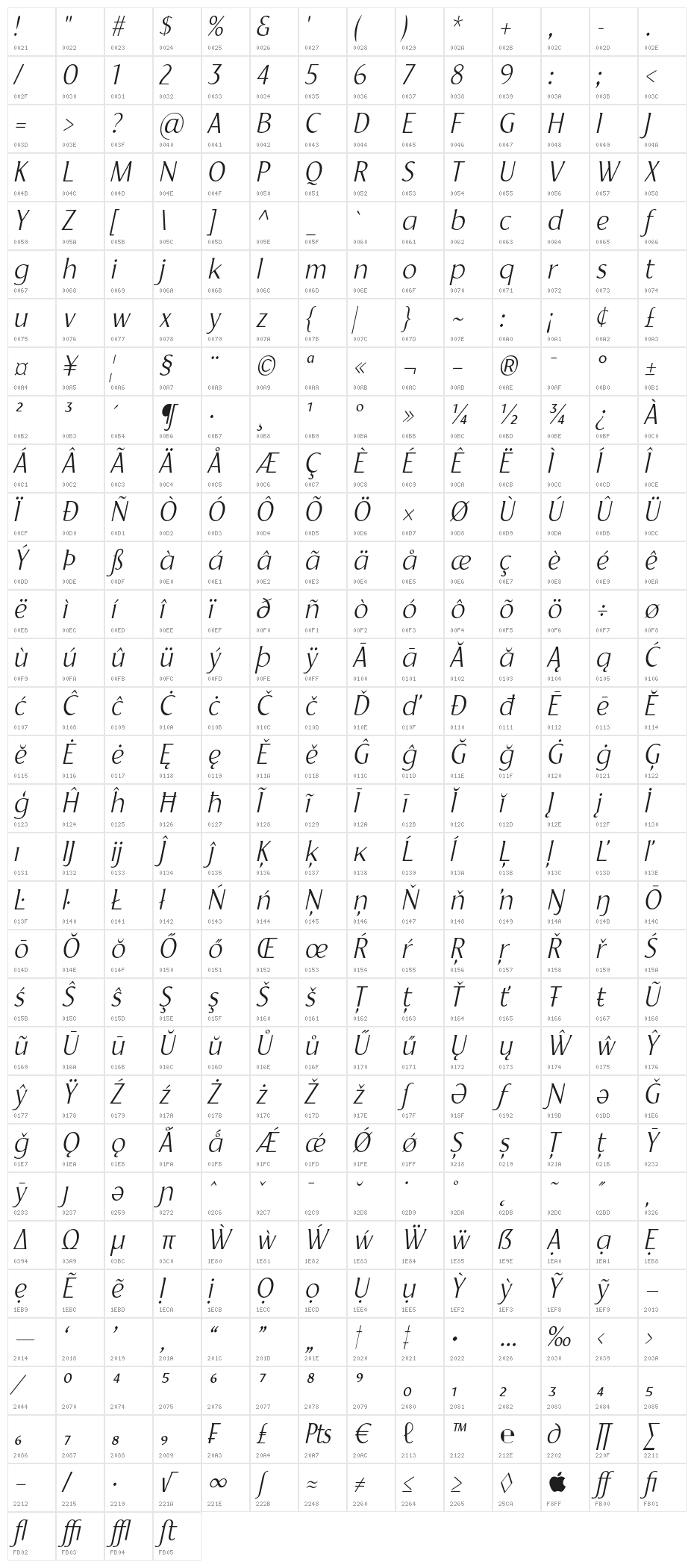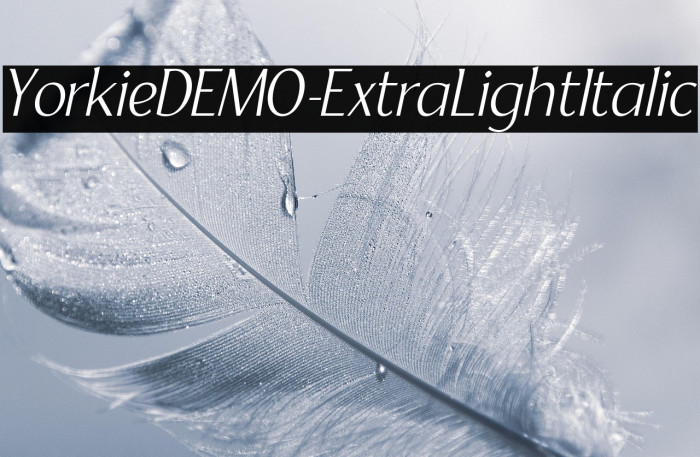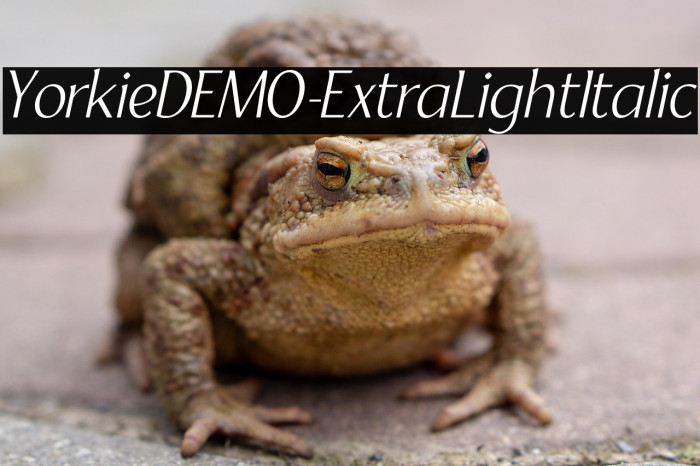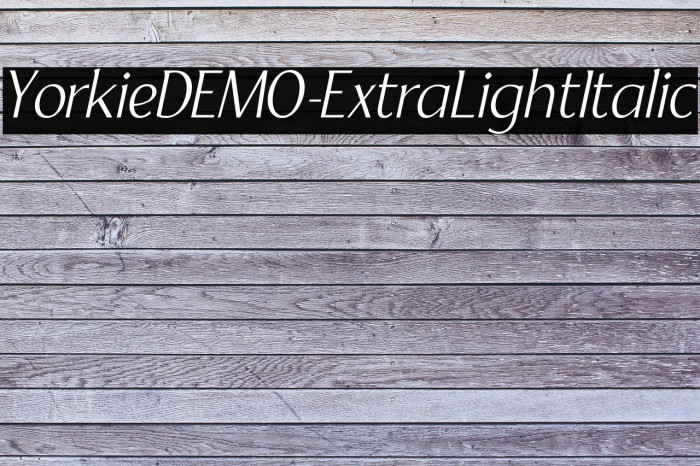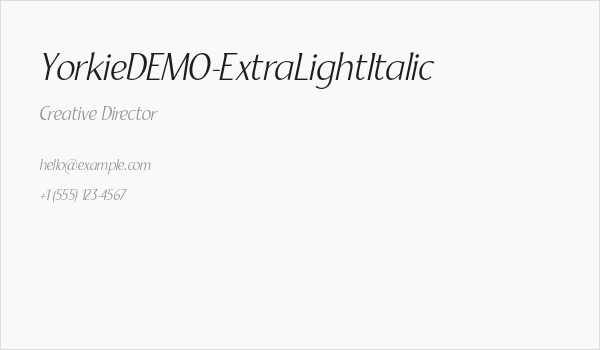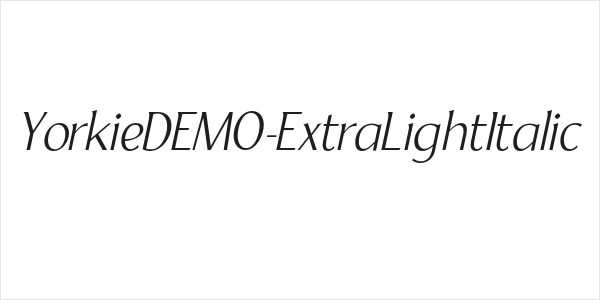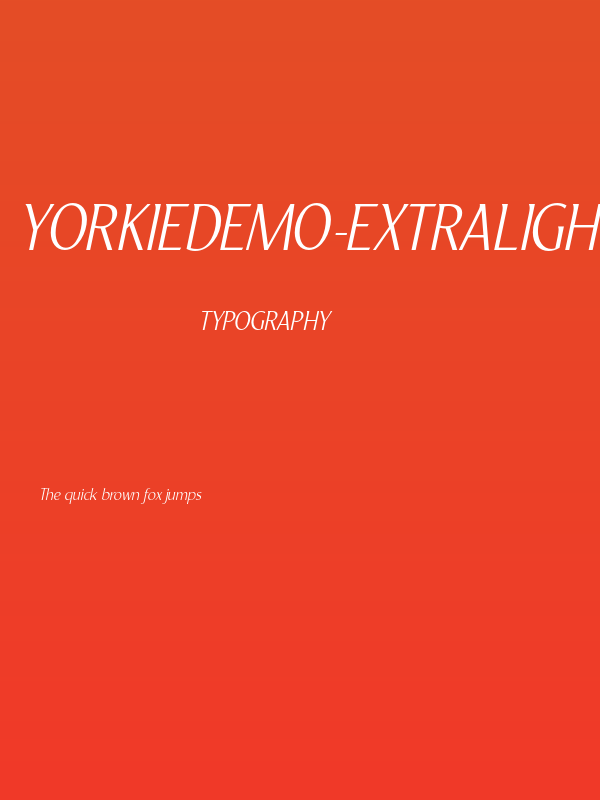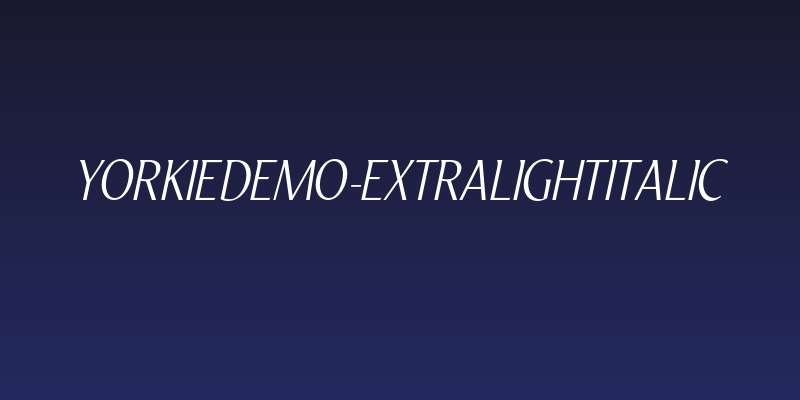
YorkieDEMO-ExtraLightItalic Font
YorkieDEMO-ExtraLightItalic Description
This font features an elegant and sophisticated design with a distinct italic slant, giving it a dynamic and fluid appearance. The strokes are thin and delicate, emphasizing an extra light weight that adds a touch of refinement and grace. The characters are well-proportioned, with a slight contrast in stroke thickness that enhances readability while maintaining an airy feel. The font's overall style is modern and sleek, making it suitable for projects that require a touch of elegance and sophistication. Its clean lines and subtle curves make it versatile for various design applications.
| Use Case | Headlines, Logos, Editorial design |
| Proposed Projects | Ideal for fashion magazines, luxury branding, wedding invitations, and elegant editorial designs. |